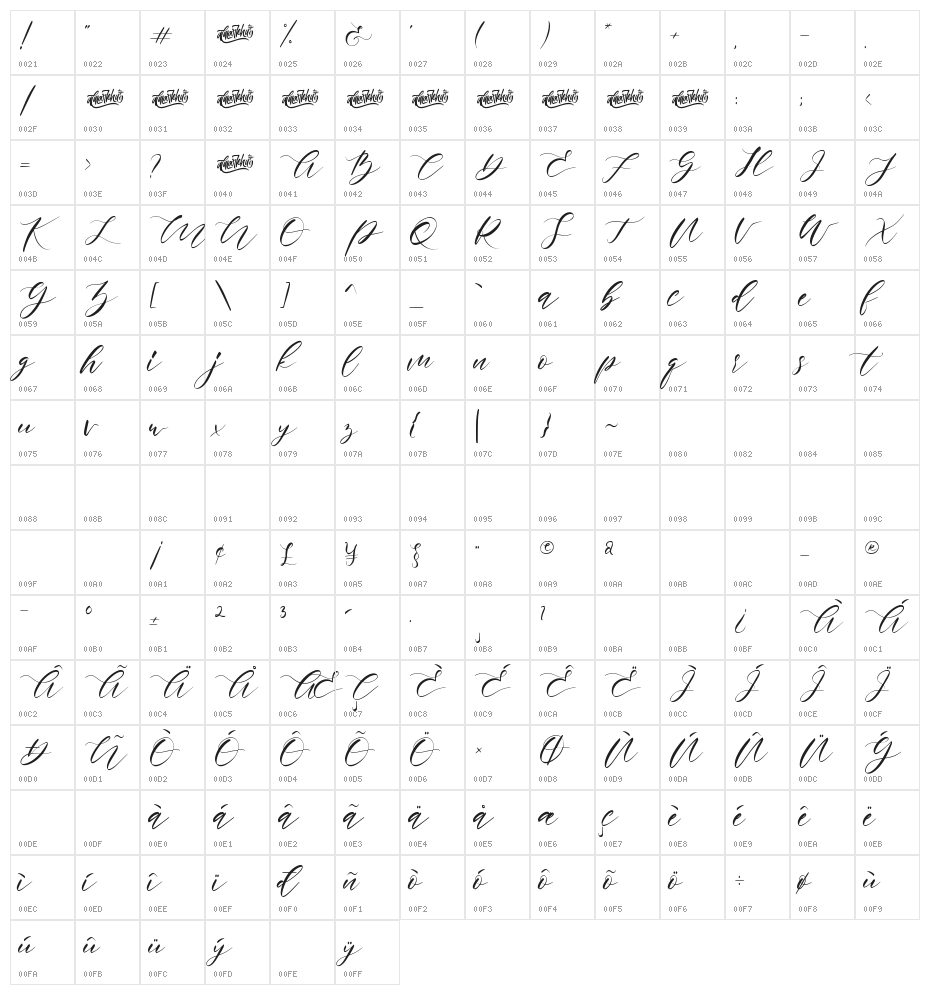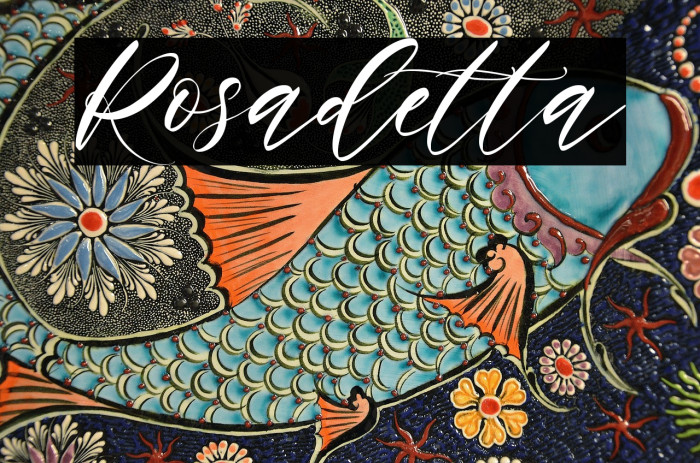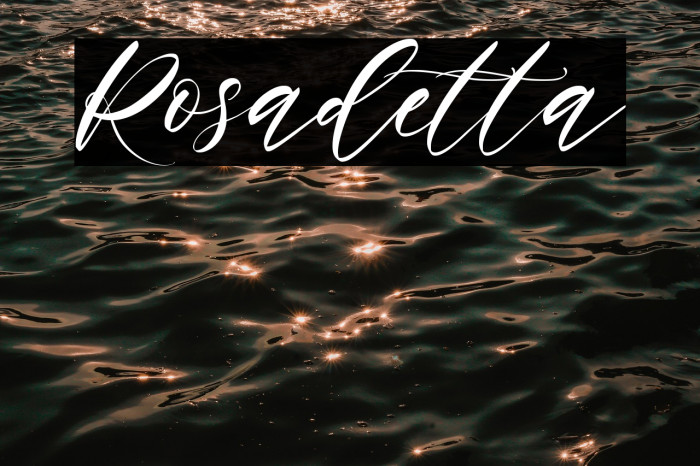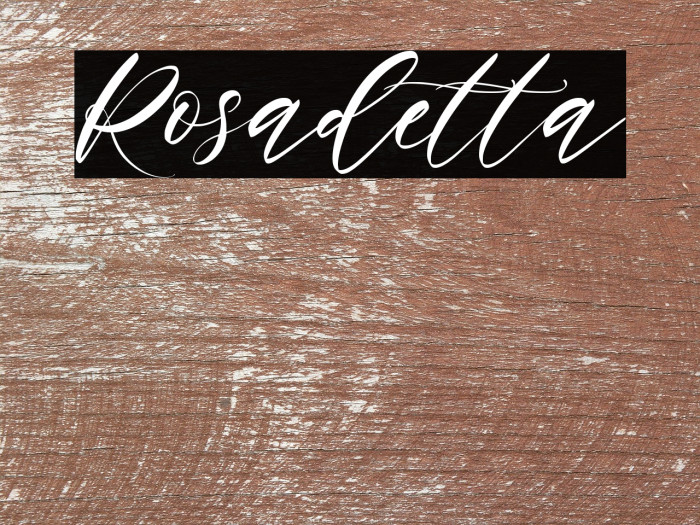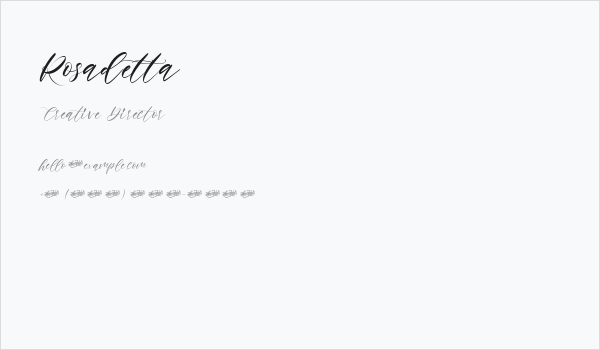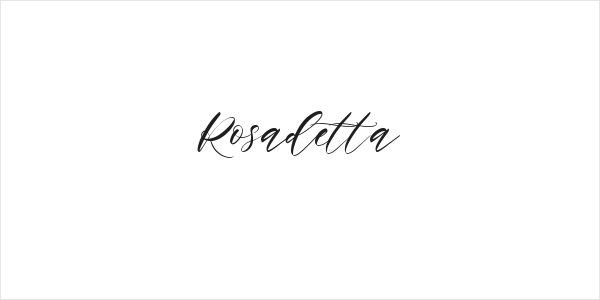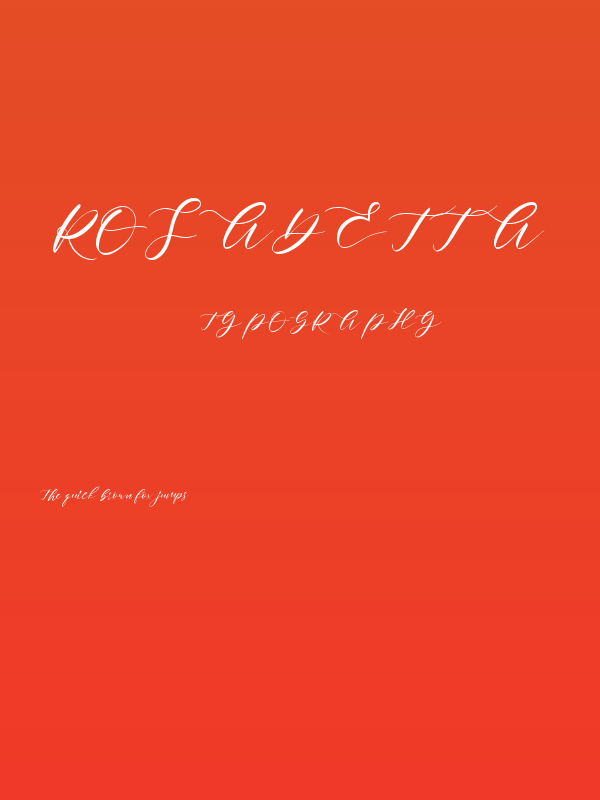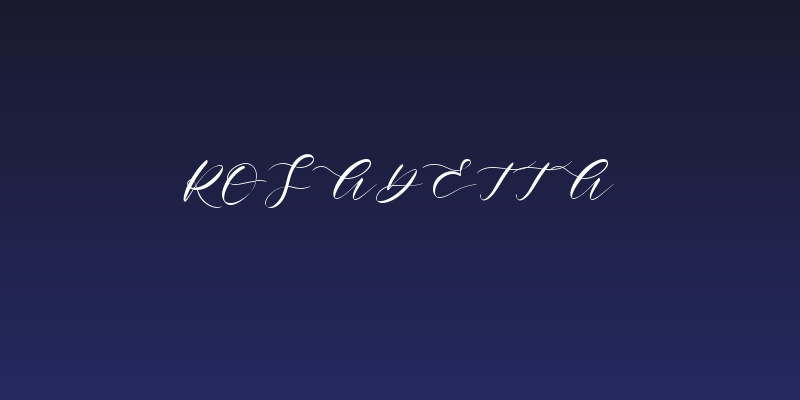
Rosadetta Font
Rosadetta Description
This elegant script font features a flowing, cursive style with intricate loops and swashes that give it a sophisticated and graceful appearance. The uppercase letters are particularly ornate, with extended flourishes that add a touch of drama and flair. The lowercase letters maintain a consistent rhythm and are slightly more restrained, providing a nice balance to the overall design. The font's strokes vary in thickness, creating a dynamic contrast that enhances its visual appeal. This font is well-suited for projects that require a touch of elegance and refinement, such as wedding invitations, branding, and high-end product packaging. Its decorative nature makes it ideal for headlines and display purposes, where it can be appreciated in larger sizes.
| Overall Style | Elegant, Decorative |
| Use Case | Headlines, Logos, Invitations |
| Proposed Projects | Wedding invitations, luxury branding, product packaging, elegant signage, and decorative headlines. |